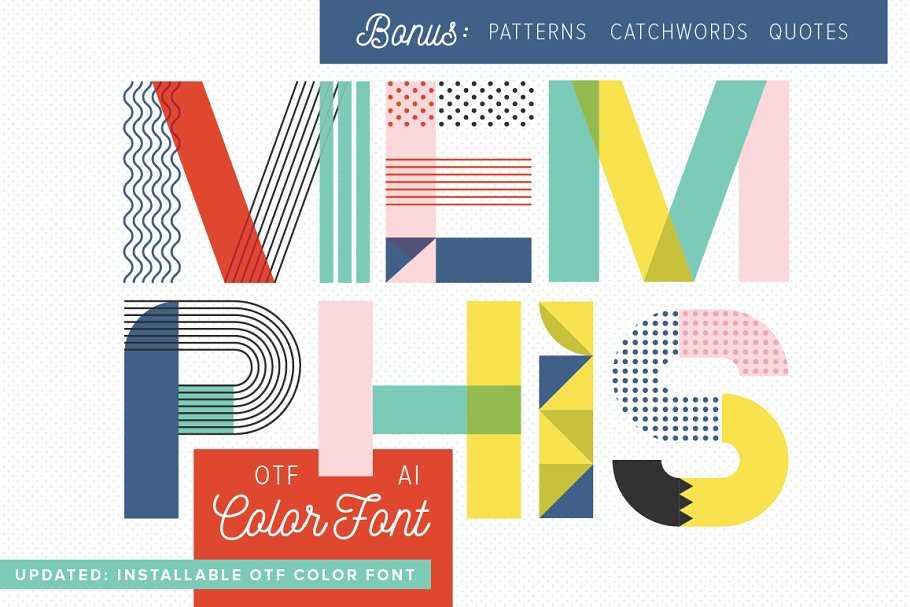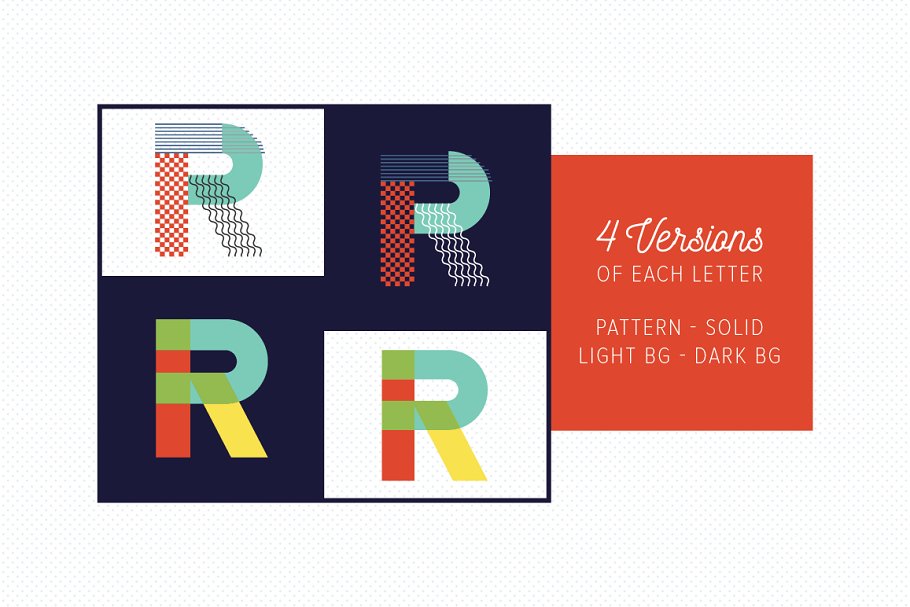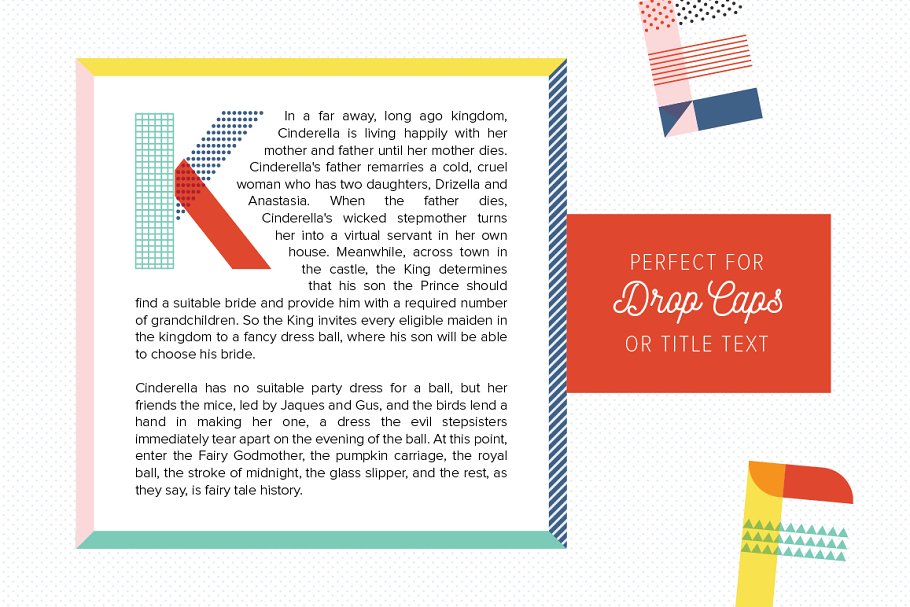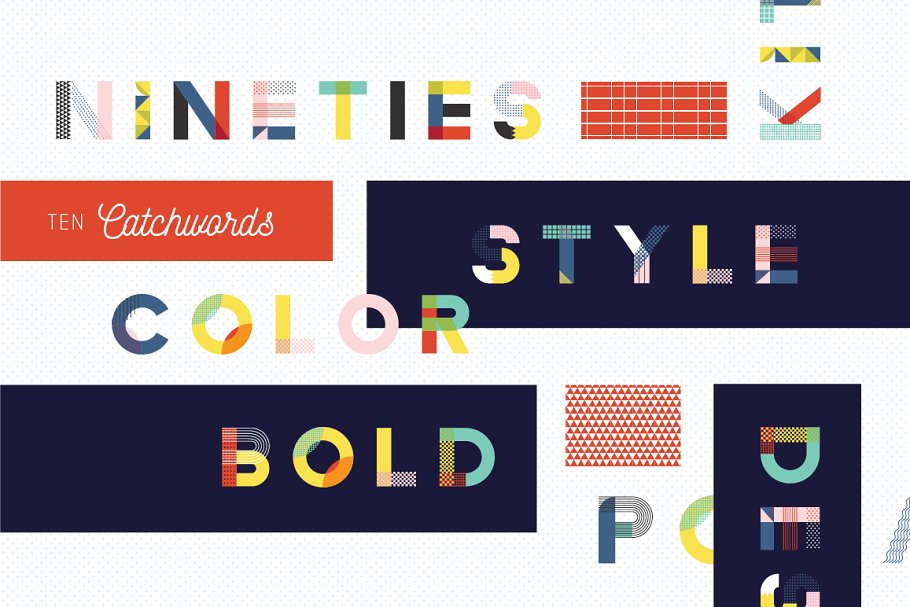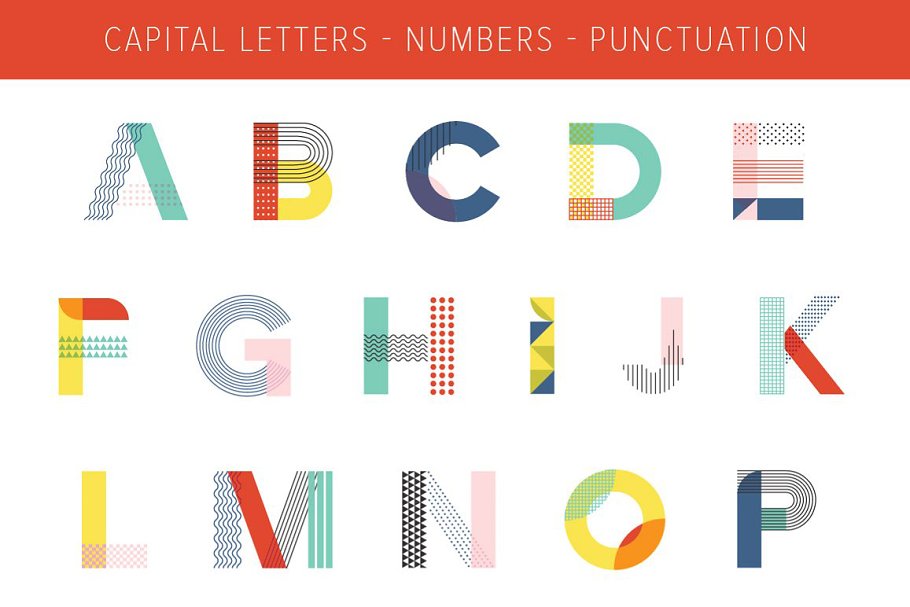
About the MEMPHIS Type Collection Font
Regular, Dark (for use on dark backgrounds), Solid (no patterns), and Dark Solid (no patterns, for use on dark backgrounds), As a designer I’m so excited about the possibilities that color fonts offer! Read more about color fonts and their possibilities here: https://creativemarket
com/blog/color-fontsOkay, maybe you can tell from recent uploads that I’m really getting into the Memphis-comeback style! One of the best ways to utilise this style is with bold, graphic text that combines bright colors and bold patterns, , , but this effect can be time consuming to create from scratch
Enter: The Memphis Type Collection! A vector alphabet that makes beautiful, custom-looking, modern type made easy, Filetype: OTF, AI, EPS, JPG, and PNG, Legacy format for Illustrator also included4 versions of each letter included: patterned, solid, for light background, and for dark backgroundUnique letters that work perfectly together!Complete set: all capital letters, numbers, and punctuation (period, comma/apostrophe, exclamation point, question mark)PLUS! Included with this alphabet areCatchwords 10 words related to this style
Vector + raster formats, Quotes 5 beautiful pre-made quotes, Vector + raster formatsPatterns 10 coordinating patterns, each in 7 colors! Seamless 5000×5000 px PNGs and JPGs, plus an AI file with pattern swatches, This is a perfect tool for gorgeous title text, drop caps, quotes, branding, and other Memphis-style applications